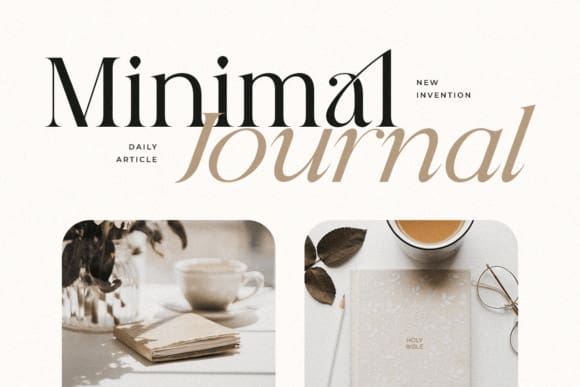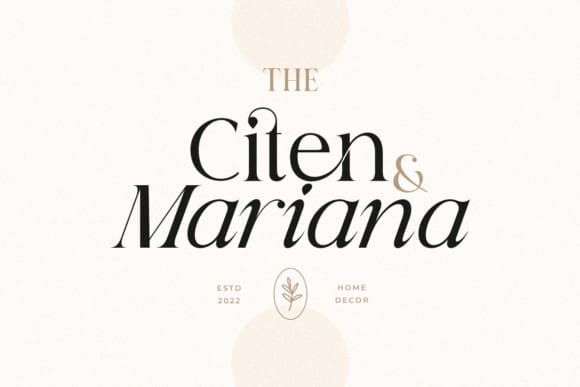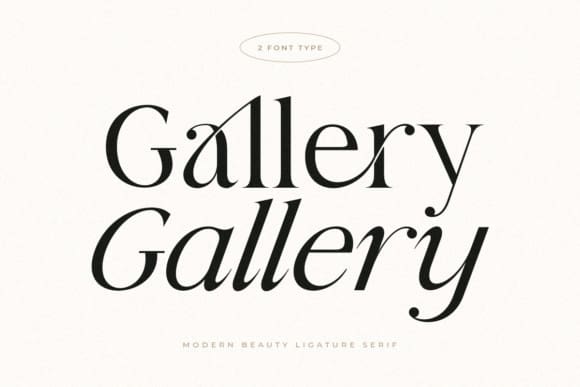
Gallery Serif Font
Gallery Serif Font, is a modern and stylish serif font that marries clean lines with subtle curves for a contemporary look. Perfect for editorial designs, luxury branding, and web typography, its sophisticated presence enhances every composition. Choose Erlangg for a touch of modern elegance in your creative projects.